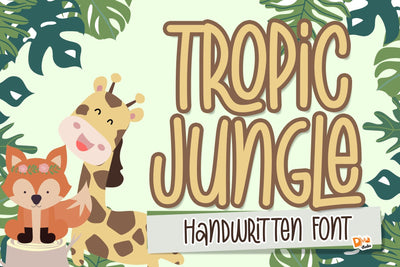
Tropic Jungle Font
Tropic Jungle Font is a vibrant and exotic typeface that brings the untamed beauty of the jungle to your design projects. With its tropical-inspired letterforms, this font adds a touch of wild elegance to your creations. Perfect for posters, branding, invitations, and any project that needs a splash of tropical flair.
- Exotic Jungle Design: The Tropic Jungle Font features unique and exotic letterforms inspired by the lush foliage and wildlife of the tropics. Each character is a visual journey into the heart of the jungle.
Usage:
- Posters and Branding: Create attention-grabbing posters and branding materials that transport viewers to a tropical paradise.
- Invitations and Stationery: Infuse a touch of exotic elegance into your invitations, greeting cards, and stationery for events and special occasions.
- Product Packaging: Elevate your product packaging with the wild charm of Tropic Jungle Font. Ideal for products with a tropical or nature-inspired theme.
- Social Media Graphics: Stand out on social media with captivating graphics that use the Tropic Jungle Font to convey a sense of adventure and allure.